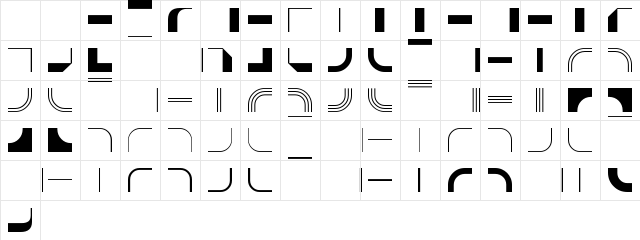
BorderPi 1515 9 Regular
Design Context for BorderPi 1515 9 Typeface
BorderPi 1515 9 is a composed and adaptable typeface that performs quietly and consistently across a wide range of design contexts.